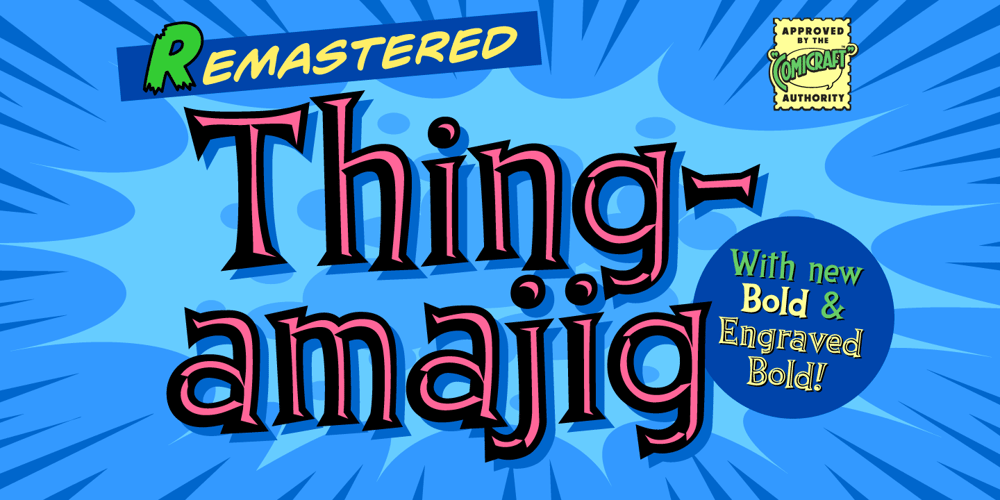
Thingamajig Font Family was designed by John Roshell and published by Comicraft. Thingamajig contains 4 styles and family package options. So ya finally wangled yer widget out from between the framistat and the whatchamacallit, ya assembled yer Avengers and ya hooked up yer hoojamajigger to the doohickey. But ya still ain’t gonna get yer contraption to work until ya plug the widget into the thingamajig! Sheesh! Wotta Revoltin’ development!Remastered Thingamajig includes new Bold & Engraved Bold weights, improved spacing & kerning, and European & Vietnamese language support. Four weights (Regular, Engraved, Bold & Engraved Bold) with upper and lower case characters and support for Western & Central Europe plus Vietnamese